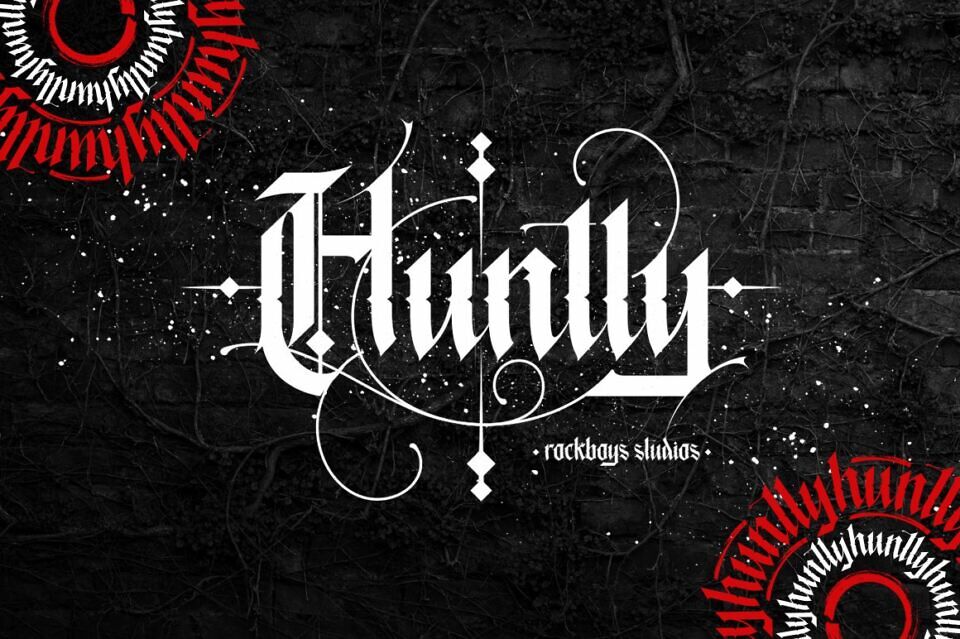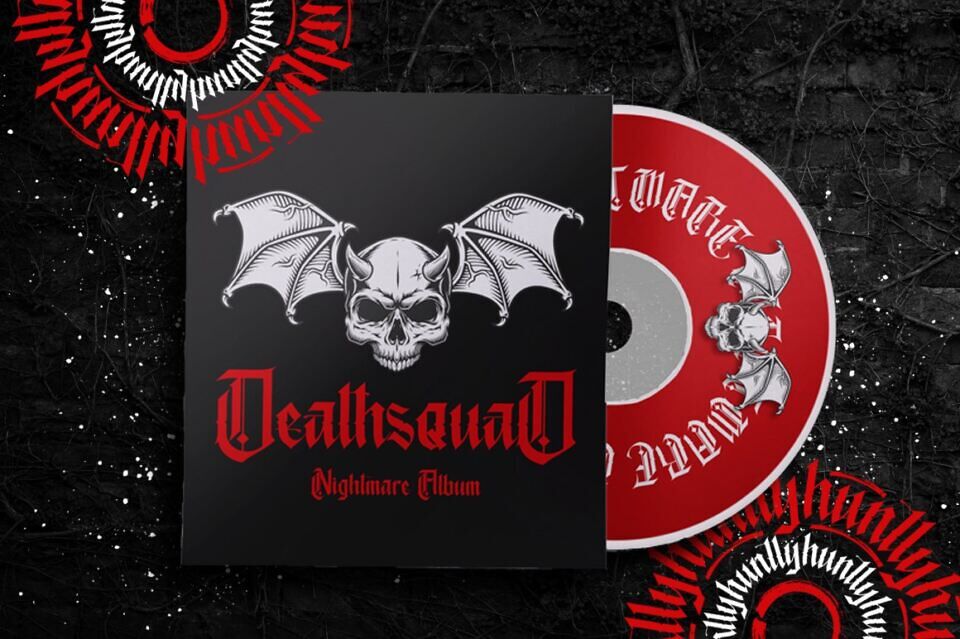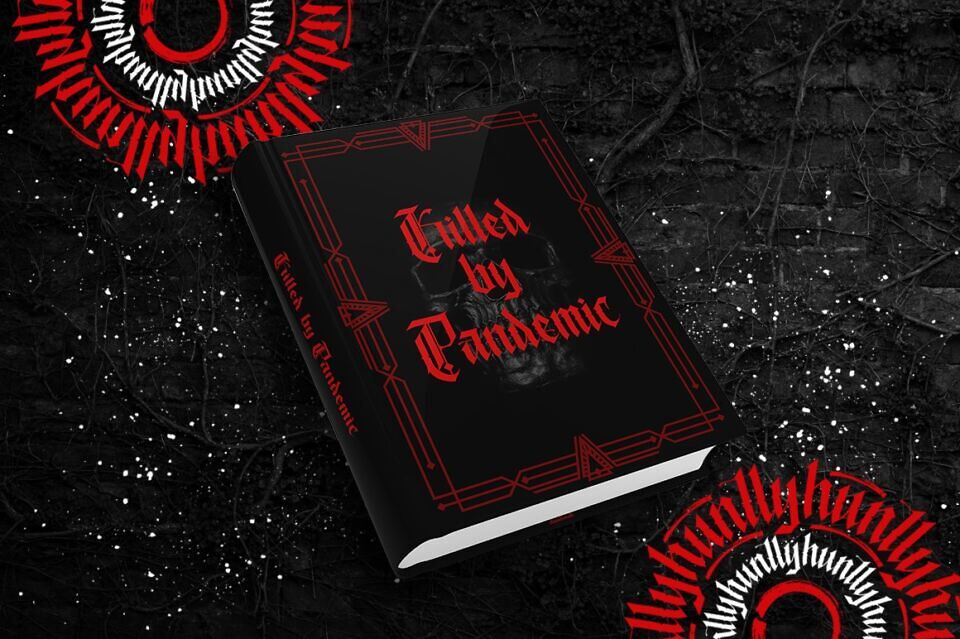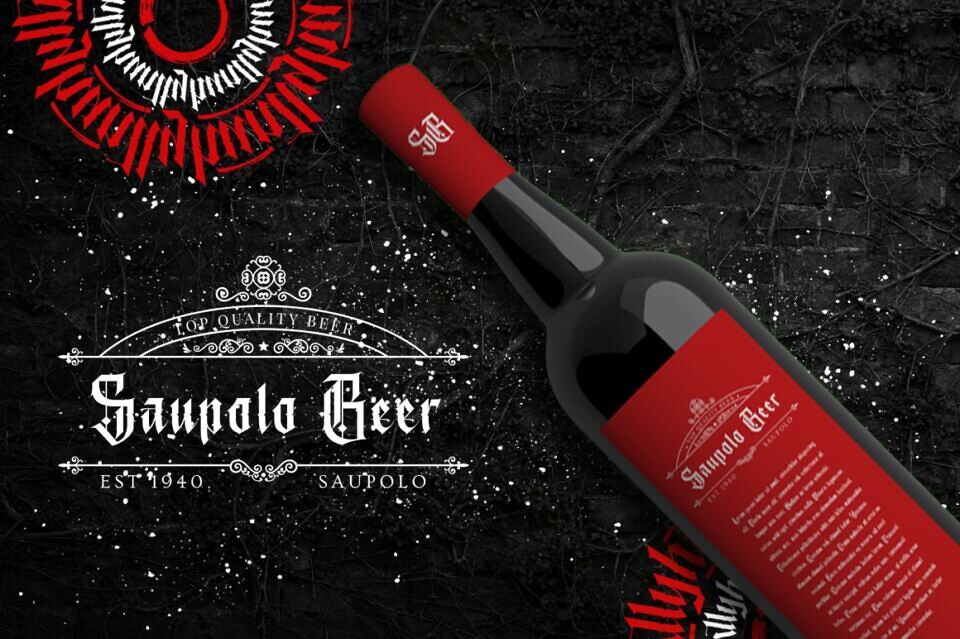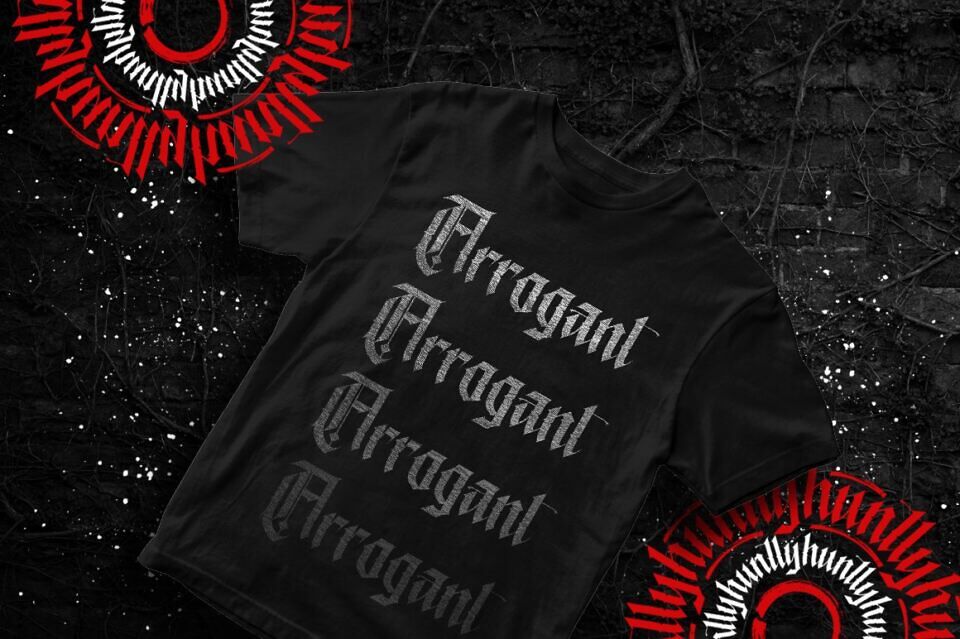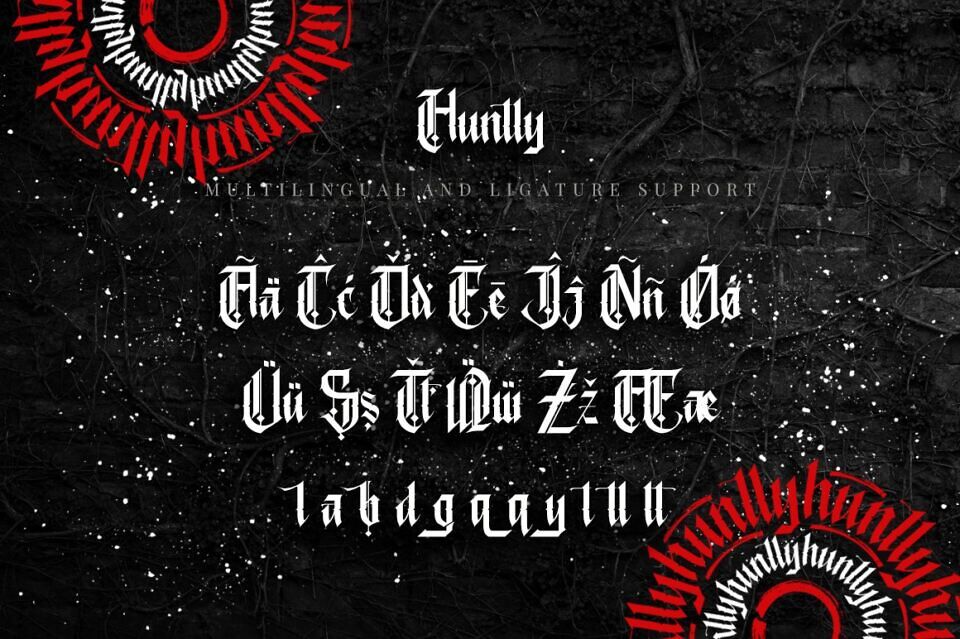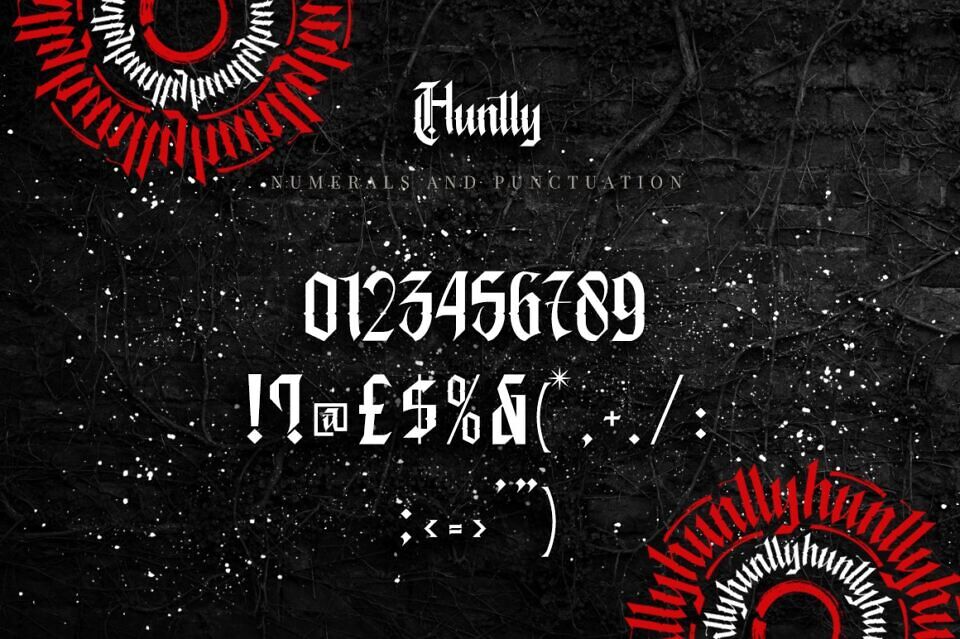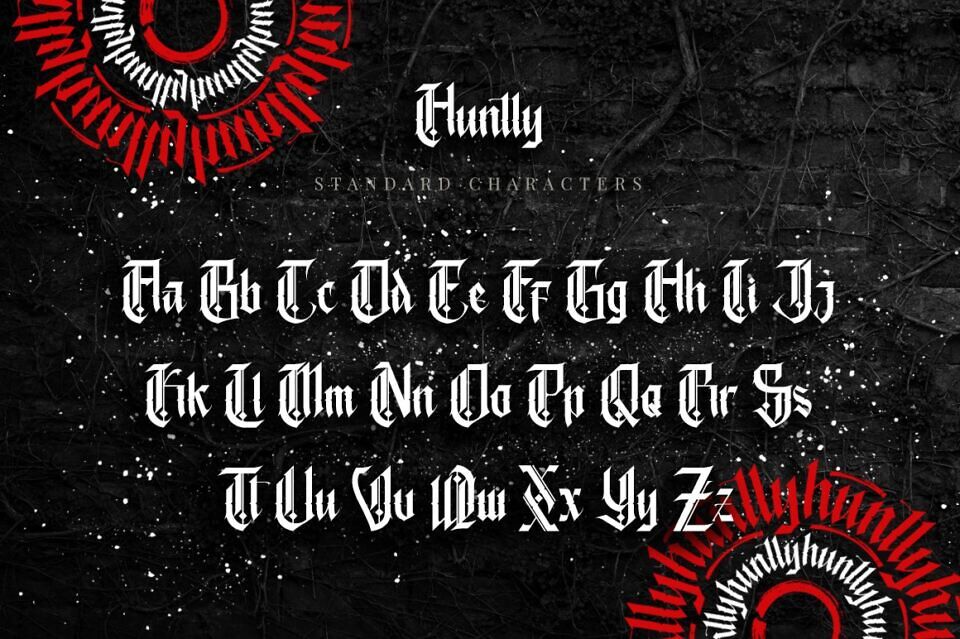
Huntly Font
Huntly is an incredibly unique and distinct blackletter font. It will add a unique touch to your designs. Use it for tattoo designs, logos, posters, book covers, albums and more!